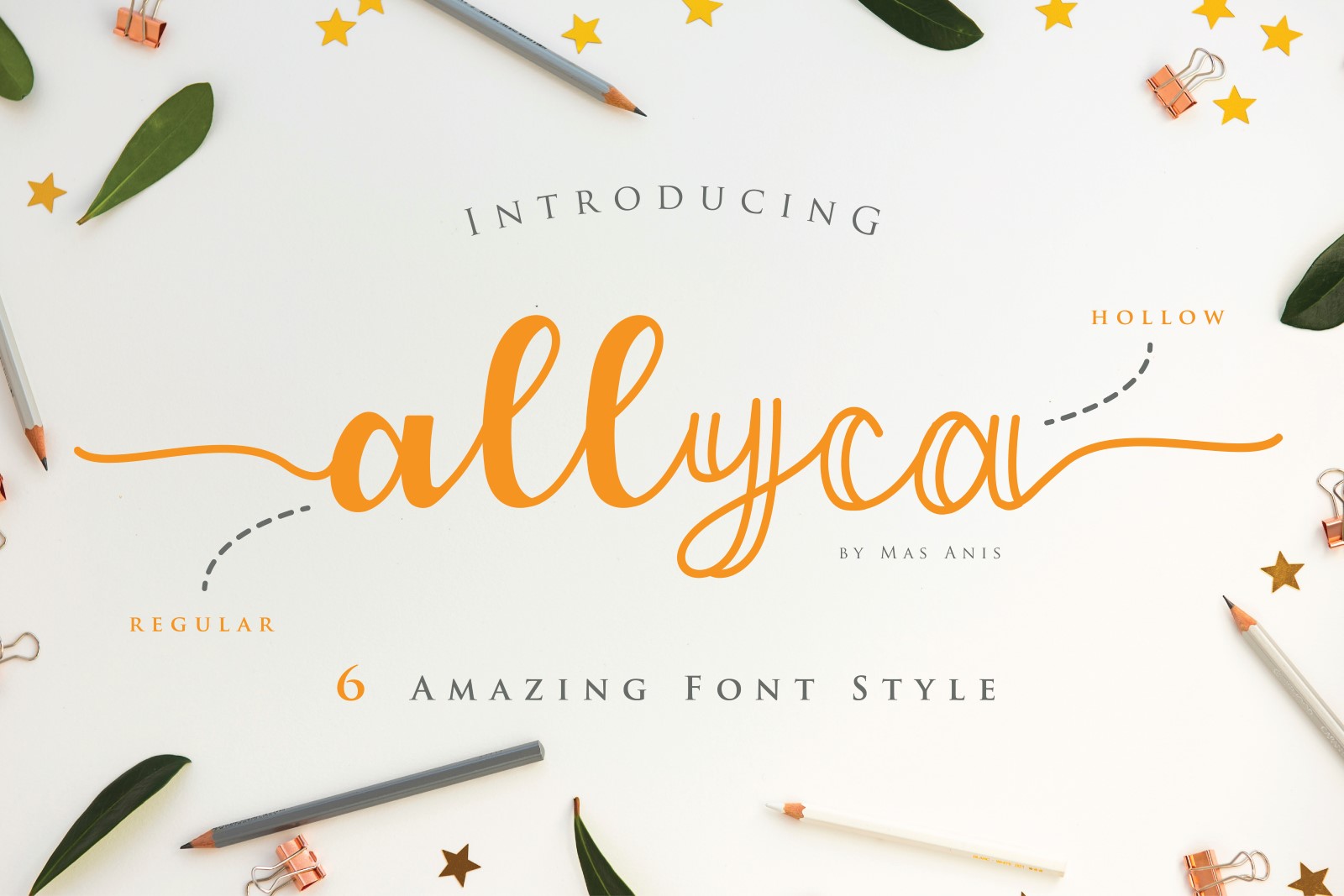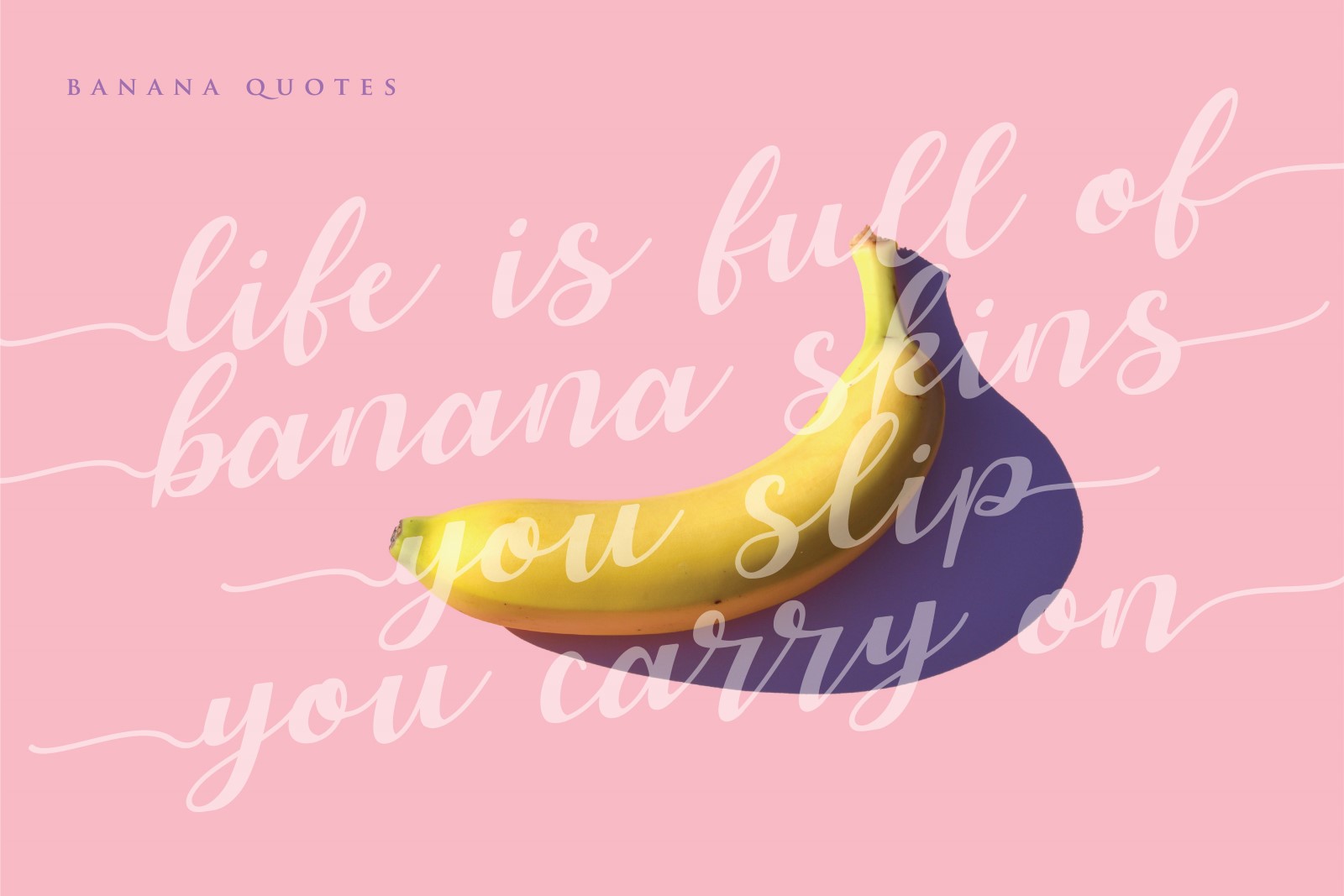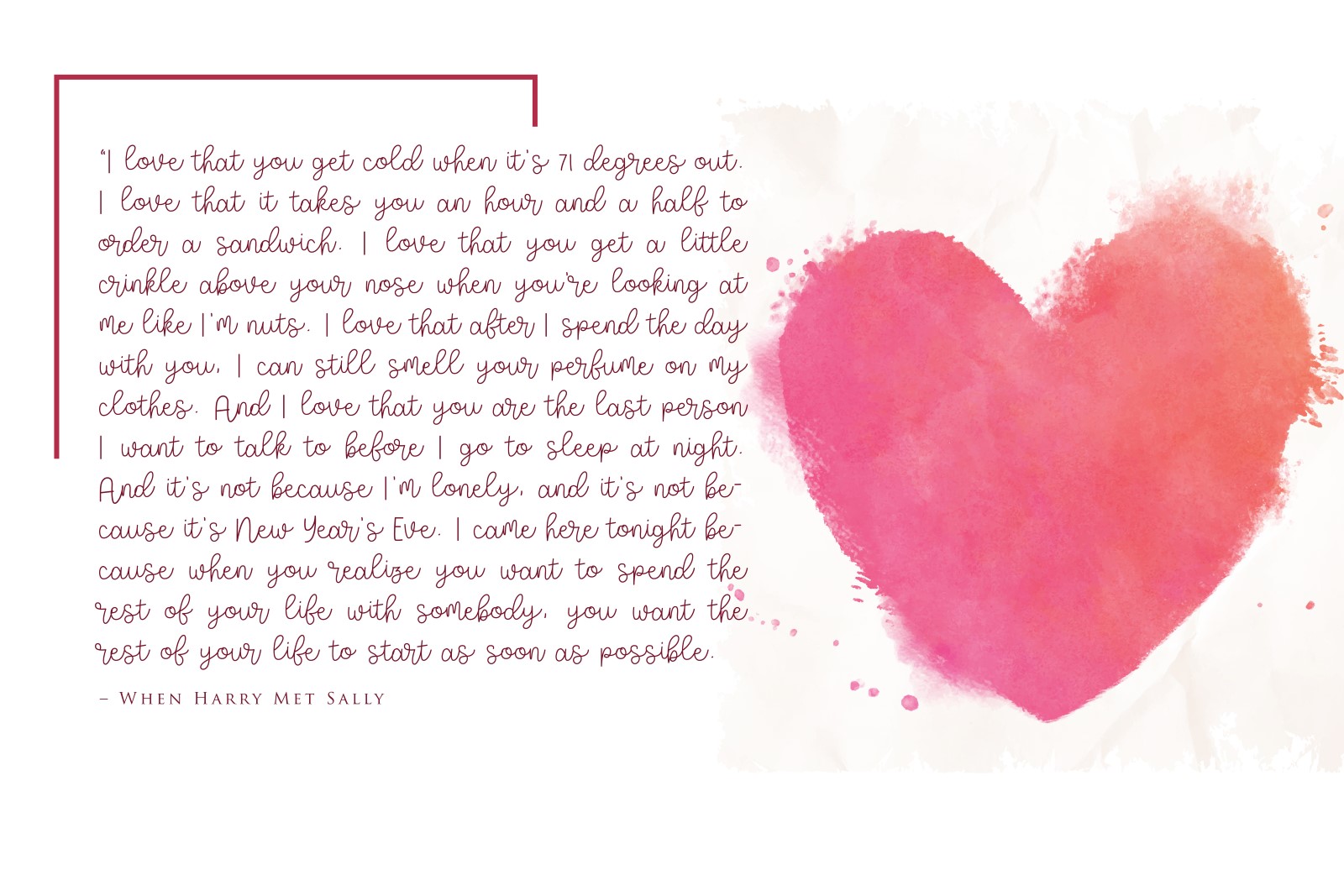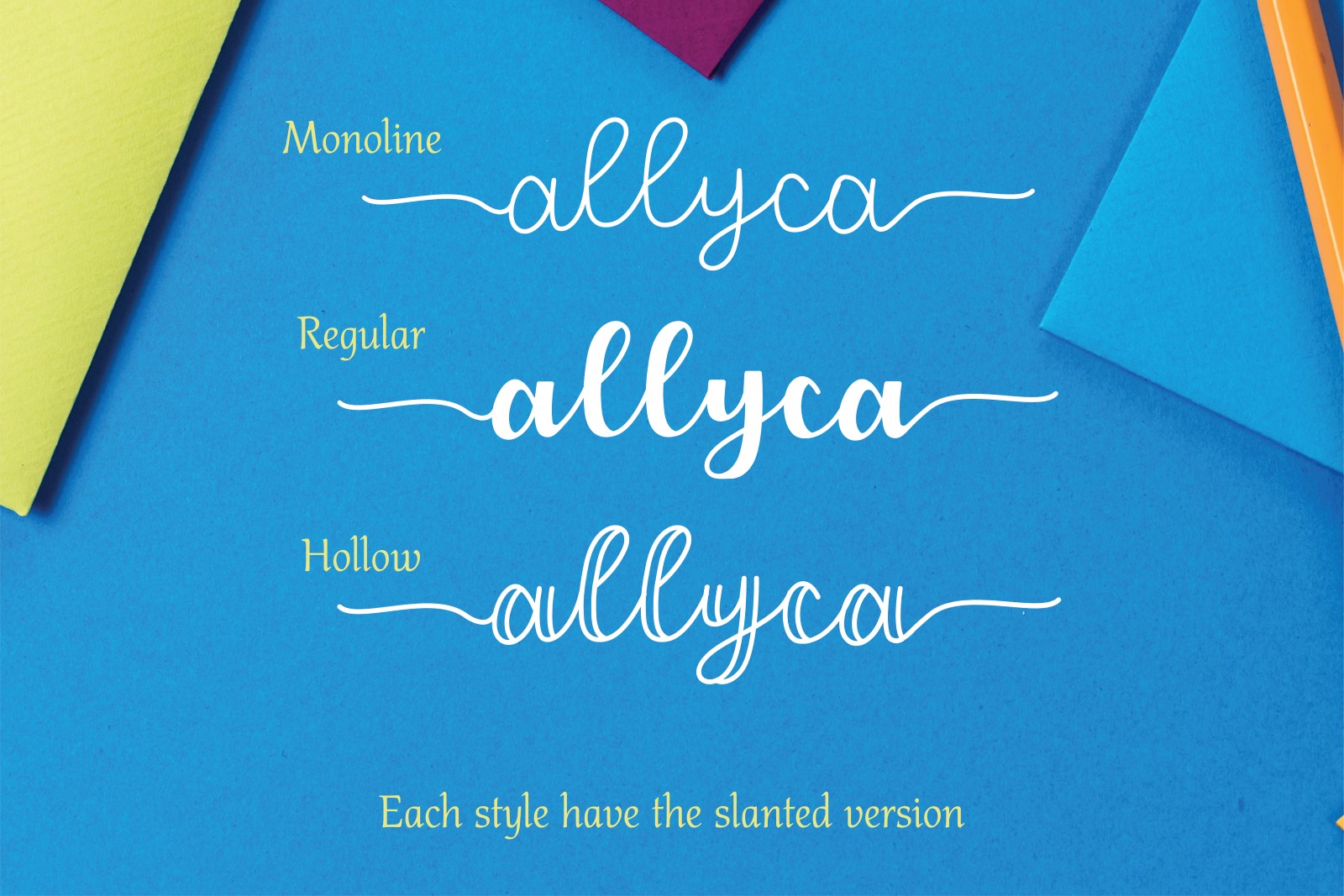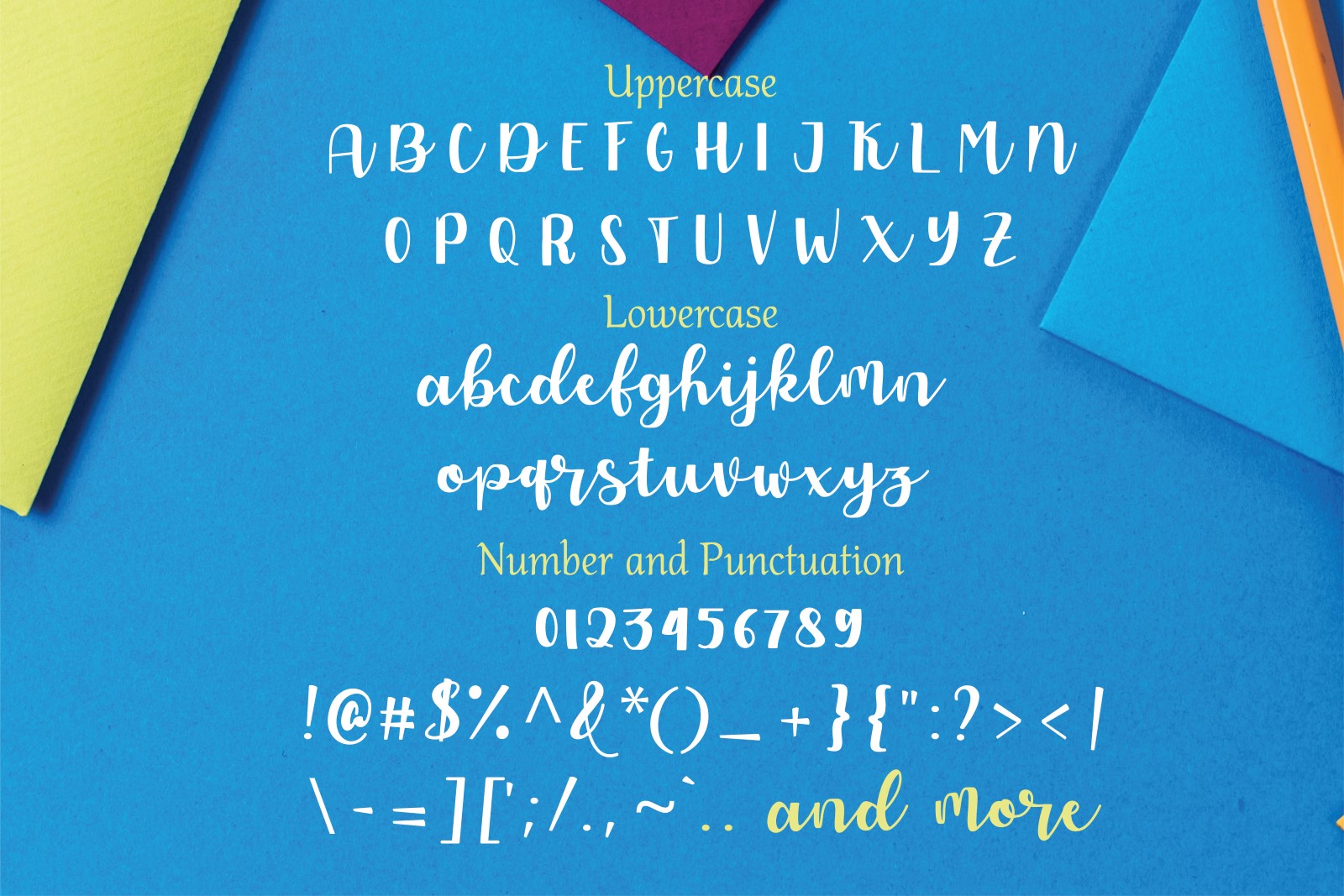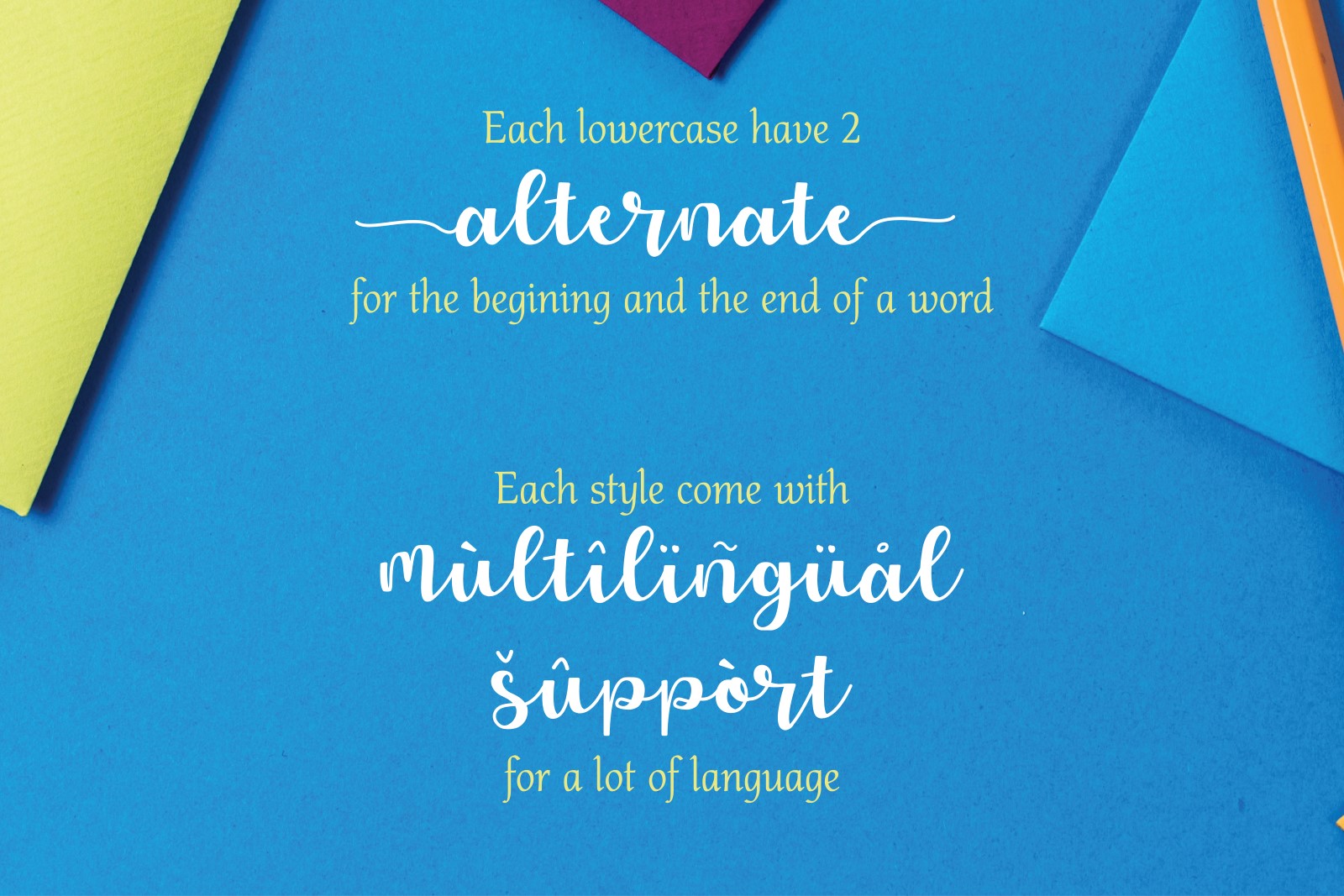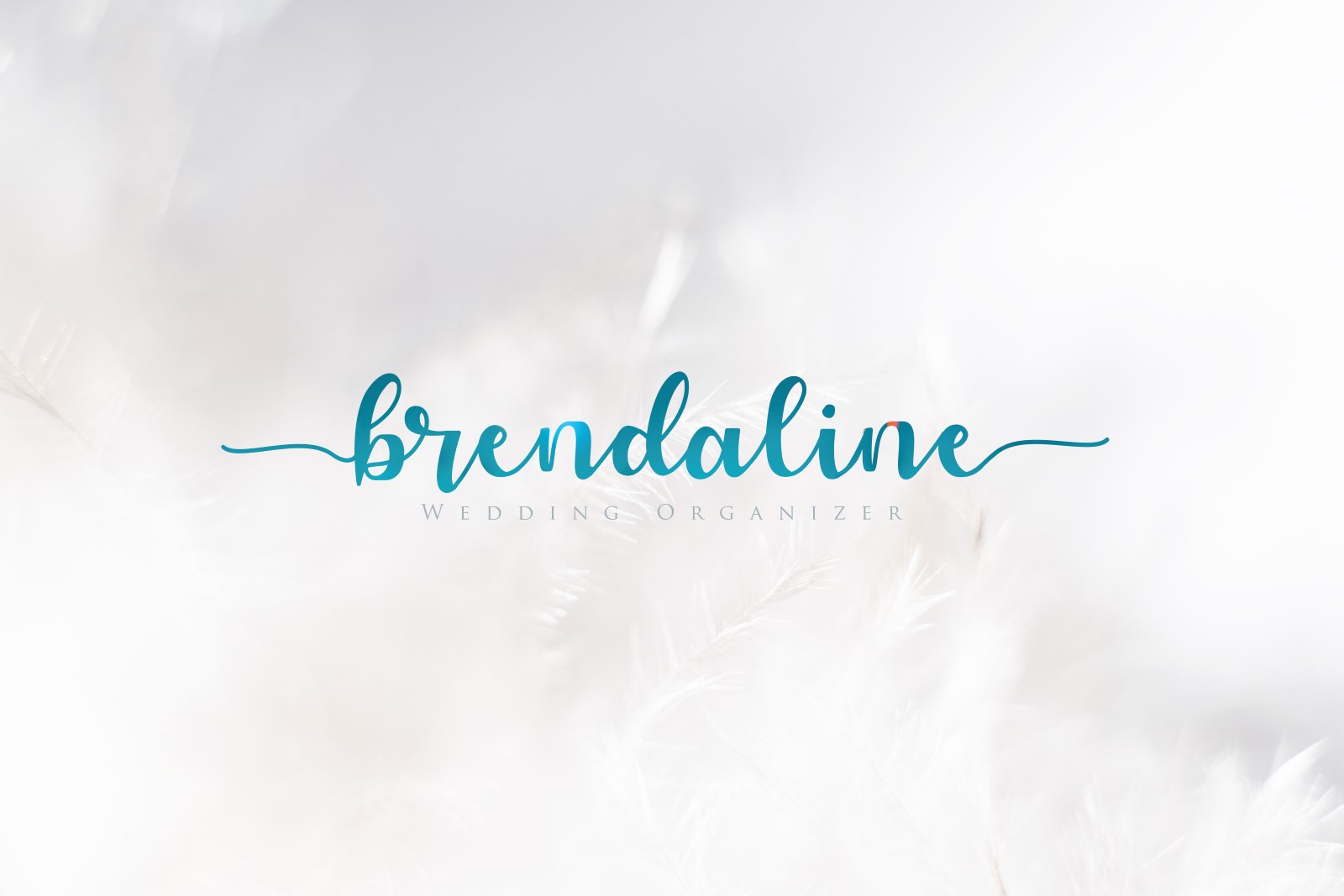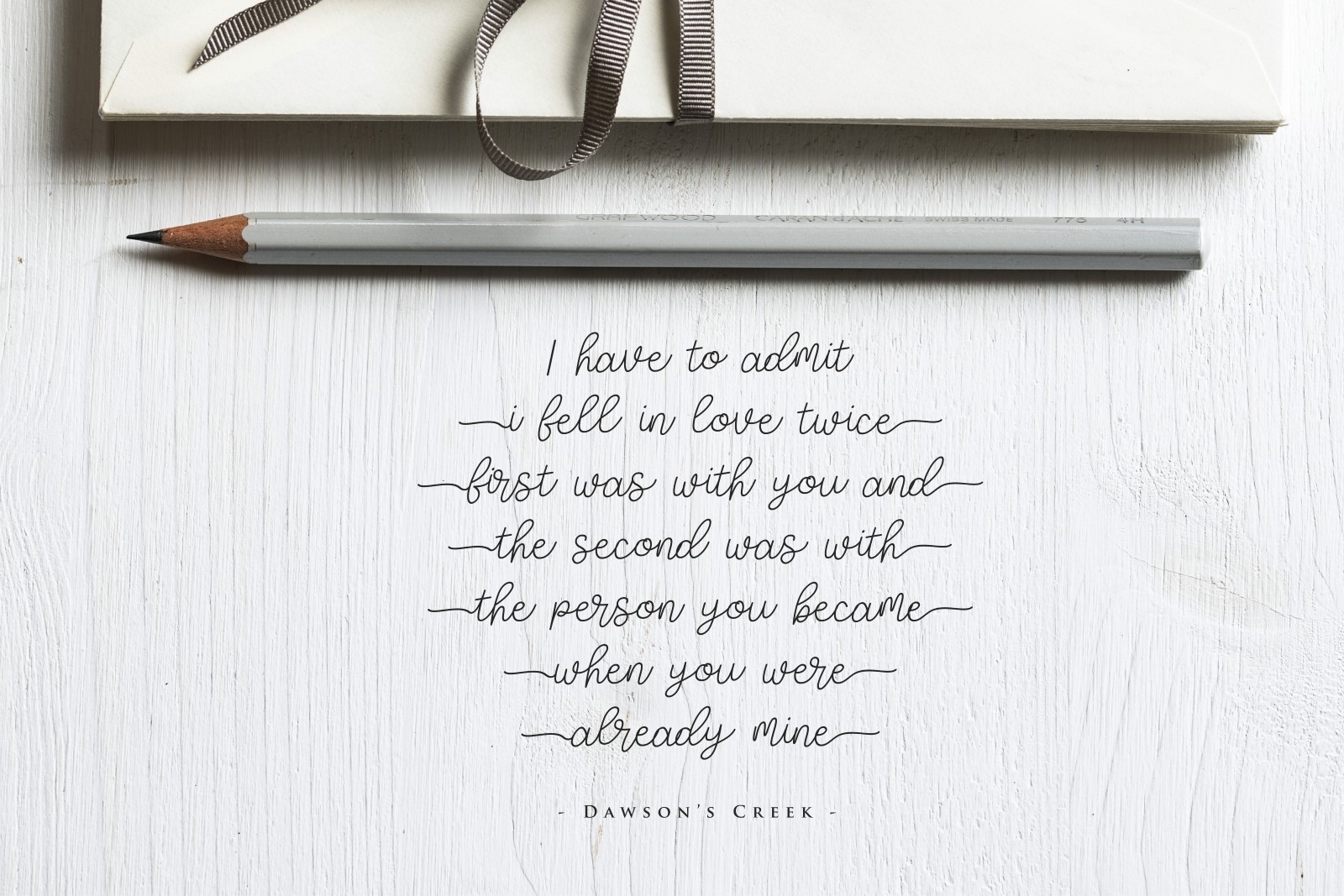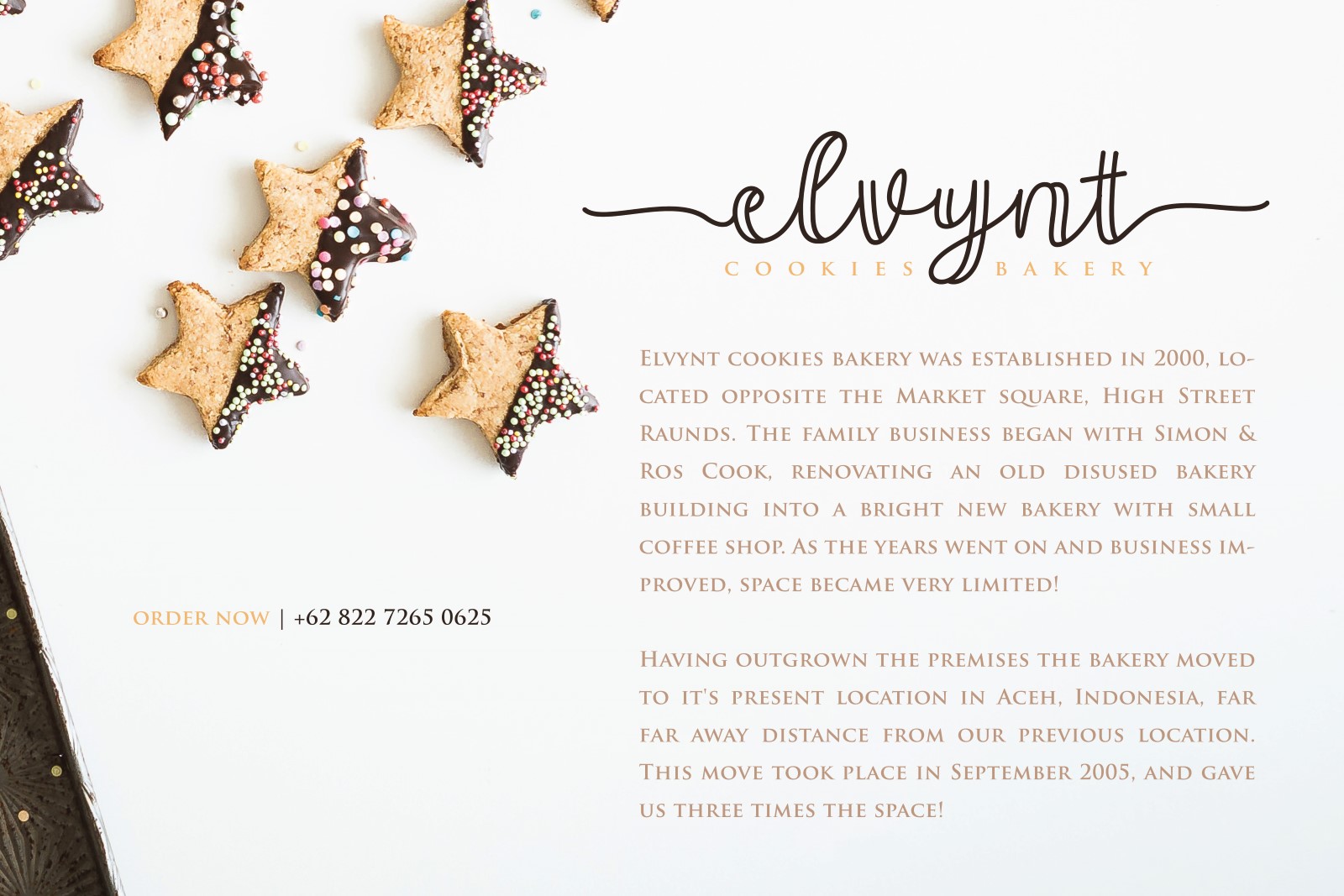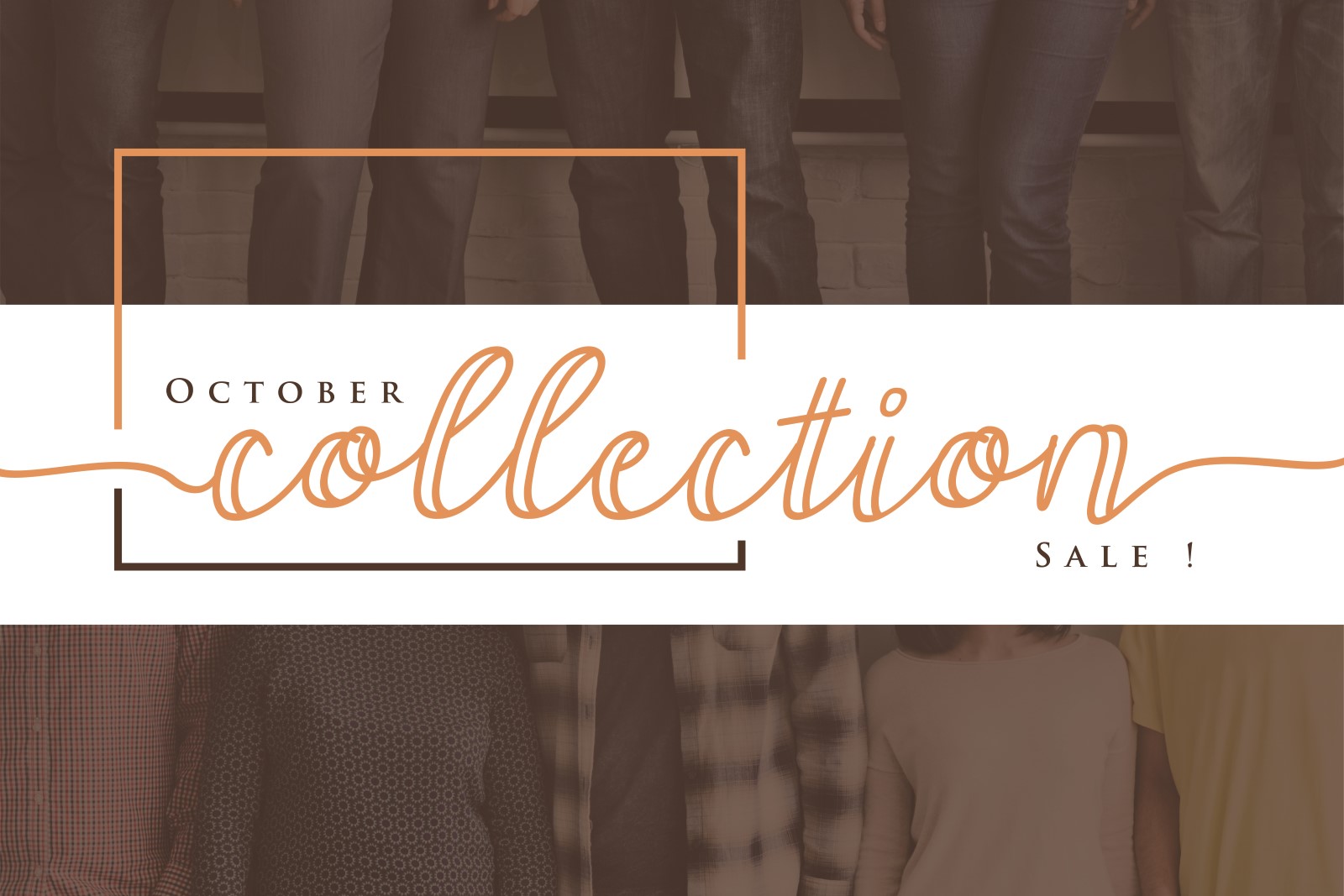
Allyca Font
About Allyca Font
Allyca is an adorable and versatile script font, perfect for a wide range of creative projects! This font looks at home in both digital and print projects, and comes in a wide range of styles so you can make truly unique designs.